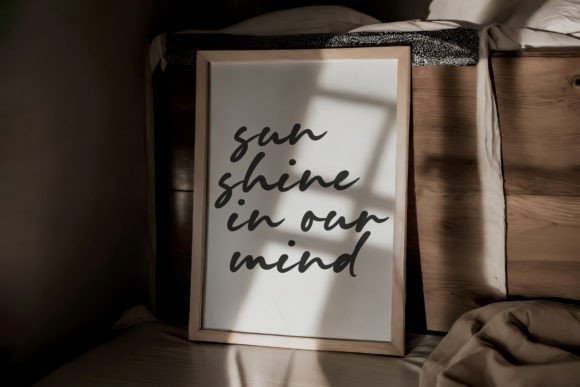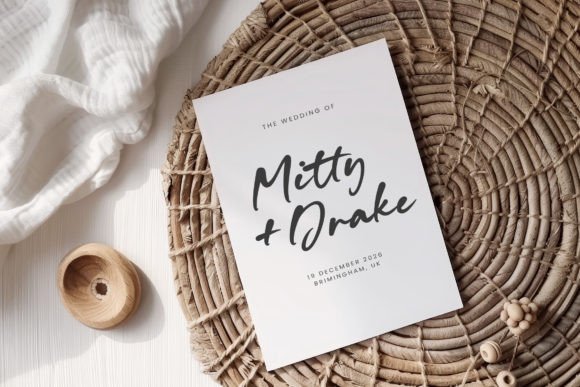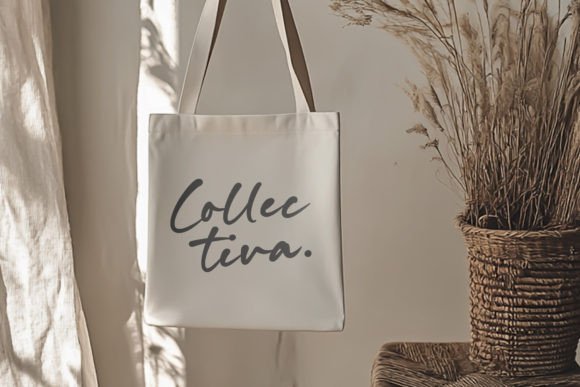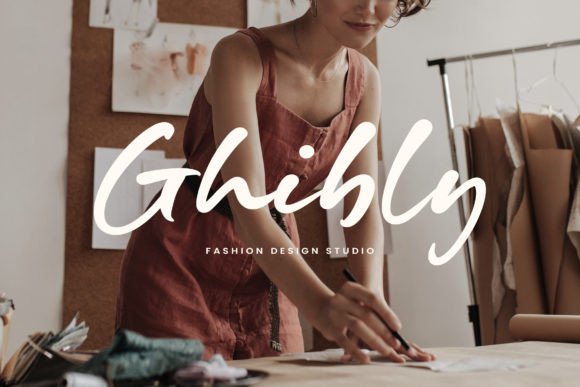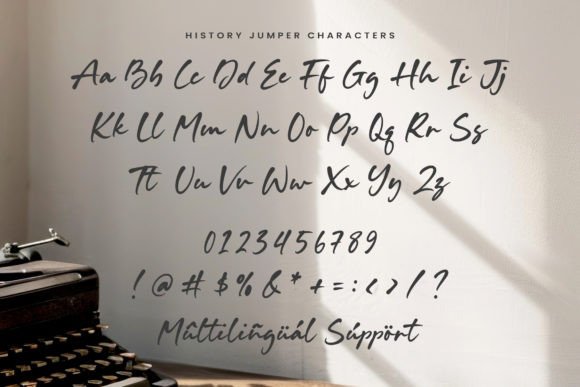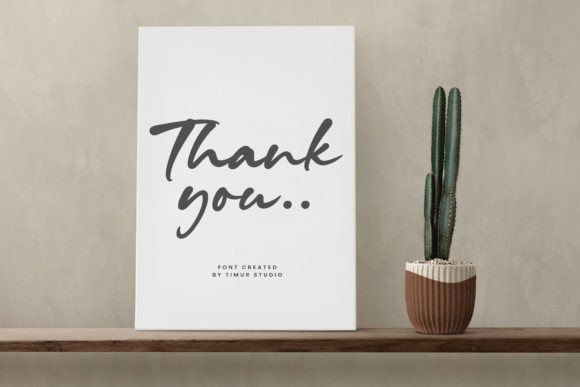
Introduction to History Jumper Font
Introduced by Timurtype Studio.
History Jumper is a Handwritten Script Font This font is a captivating handwritten script font that blends elegance with a touch of nostalgia Its fluid strokes and artistic flourishes evoke a sense of warmth and authenticity, making it perfect for invitations, creative branding, and storytelling projects.
Key Features of History Jumper Font
Why Choose History Jumper Font?
History Jumper Font offers exceptional quality and versatility, making it a valuable addition to your design toolkit. Whether you’re creating for personal projects or commercial use, History Jumper Font delivers professional results.